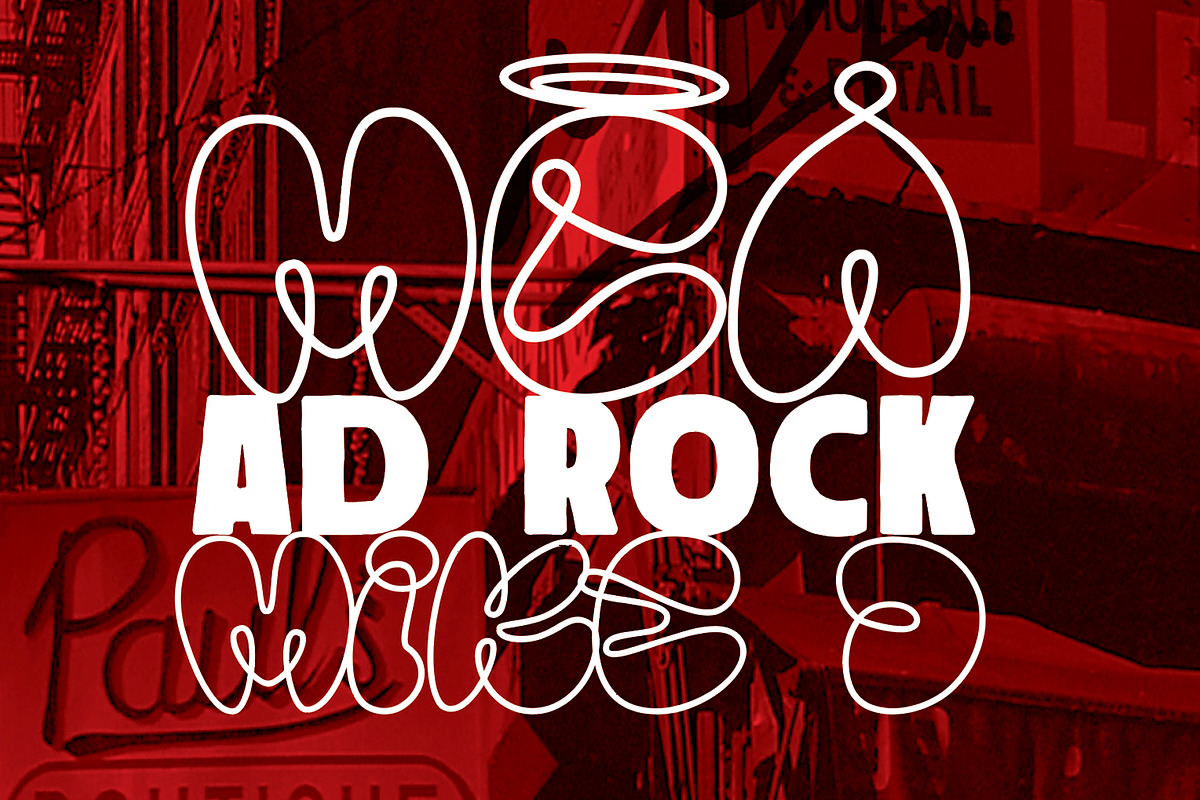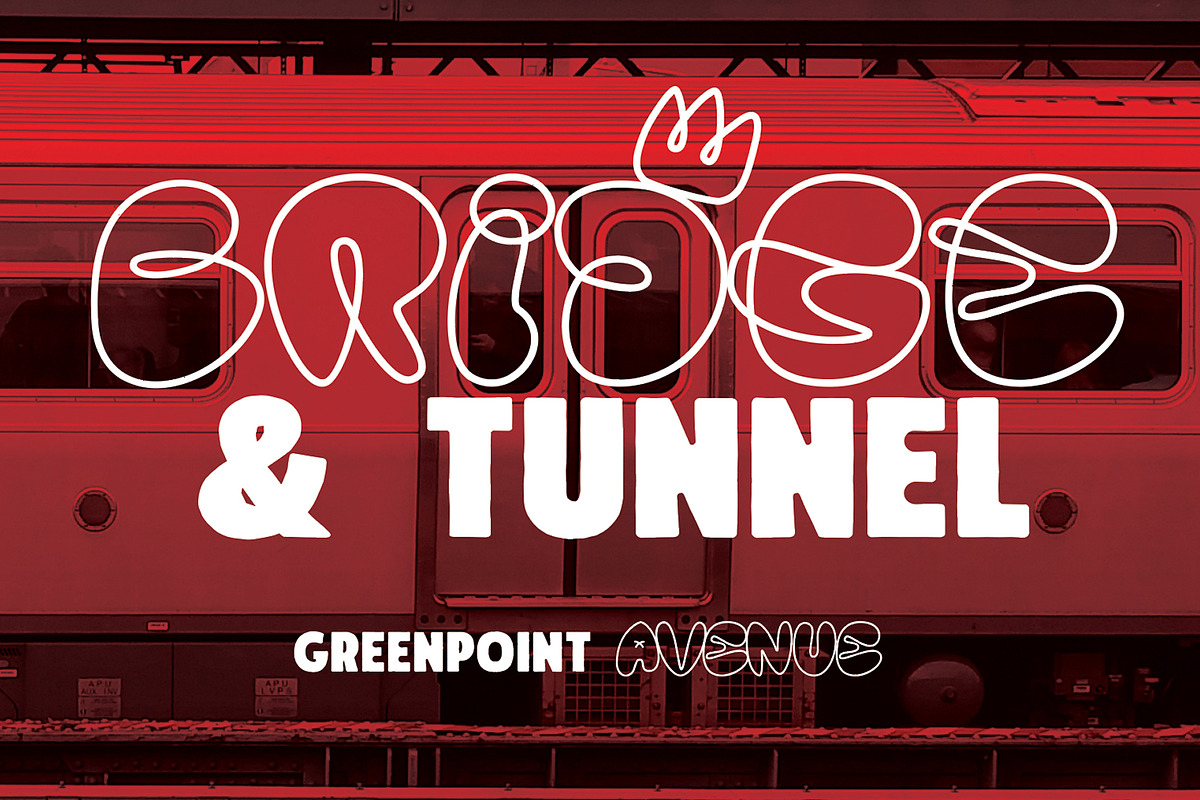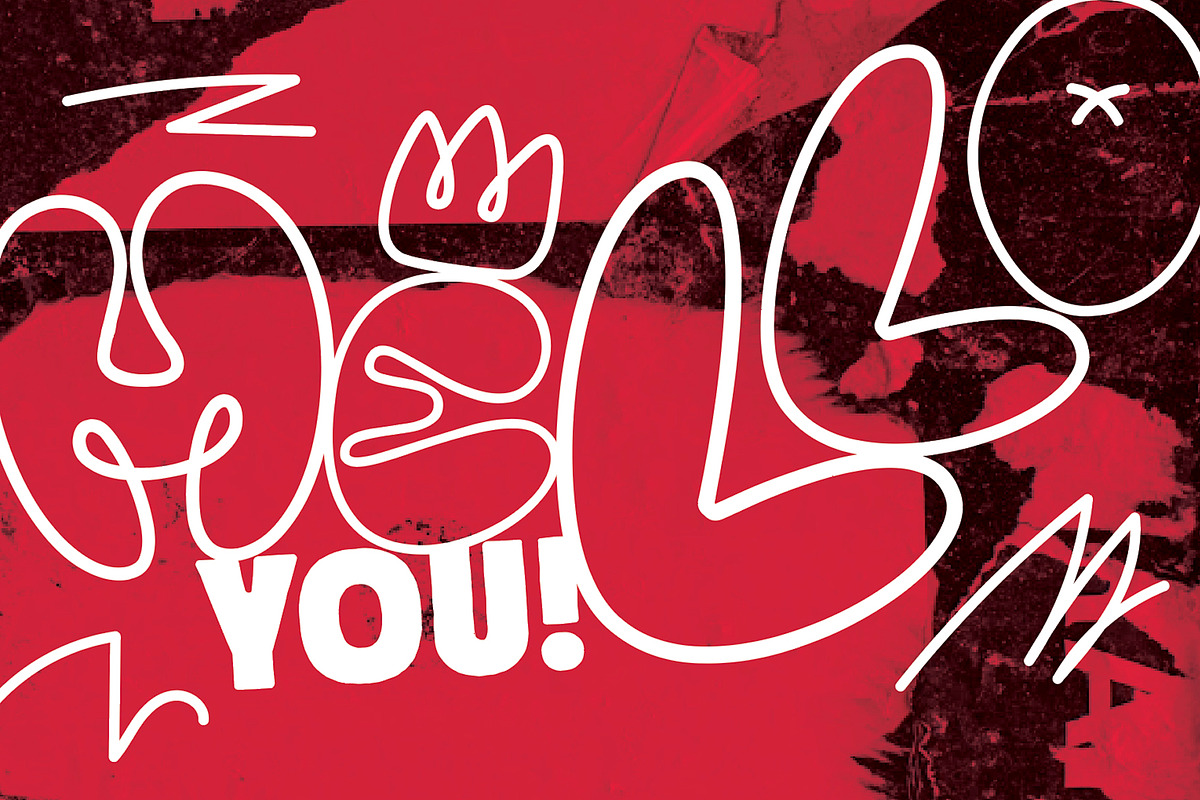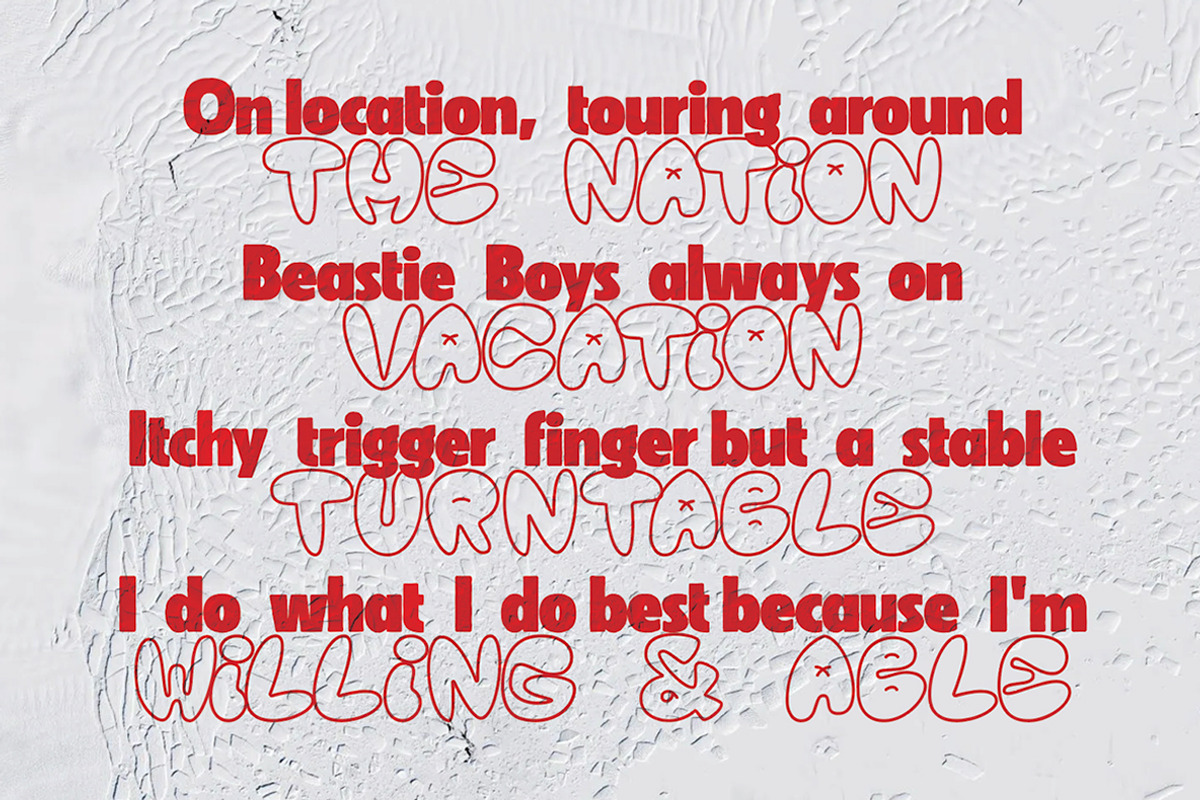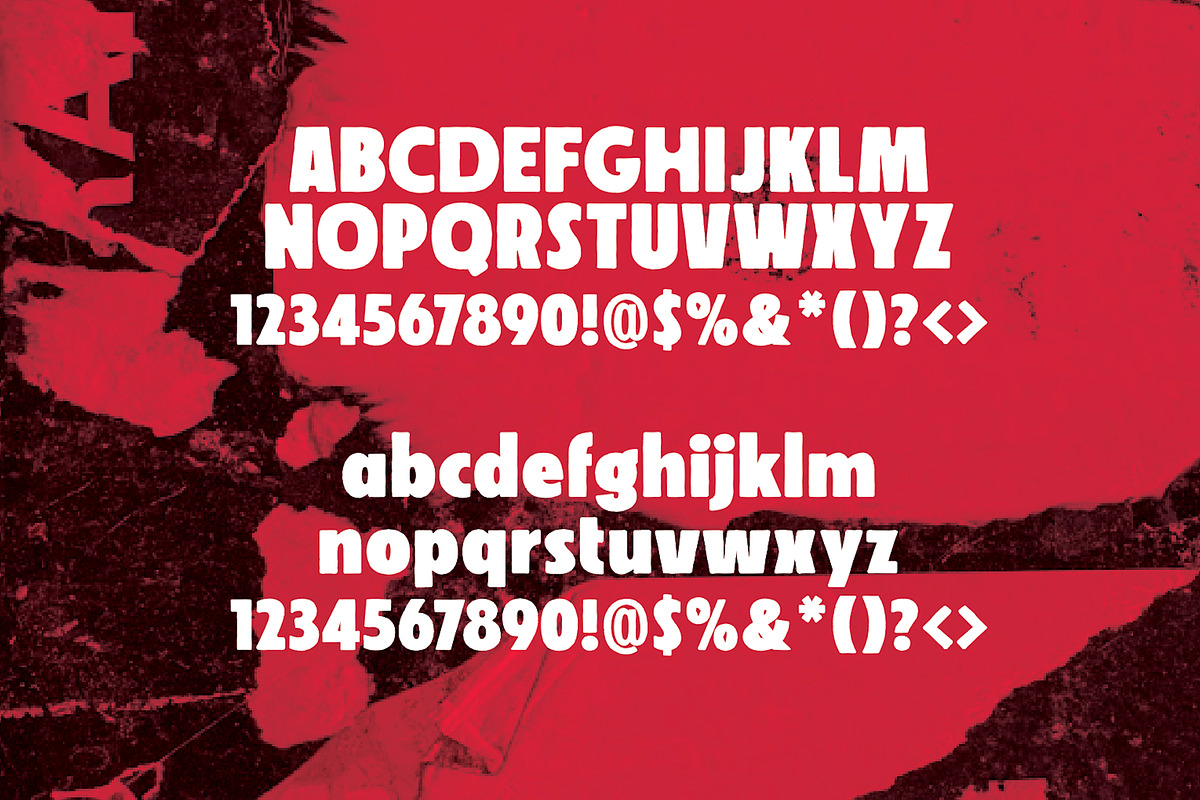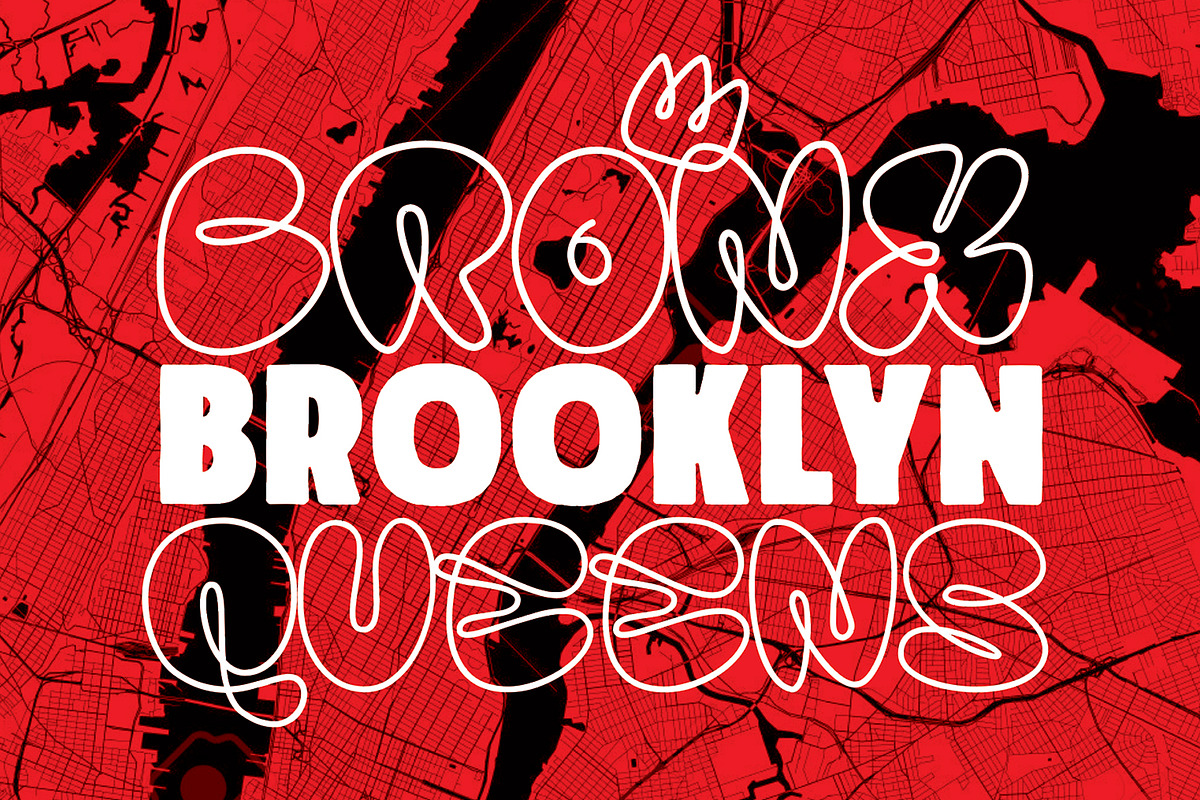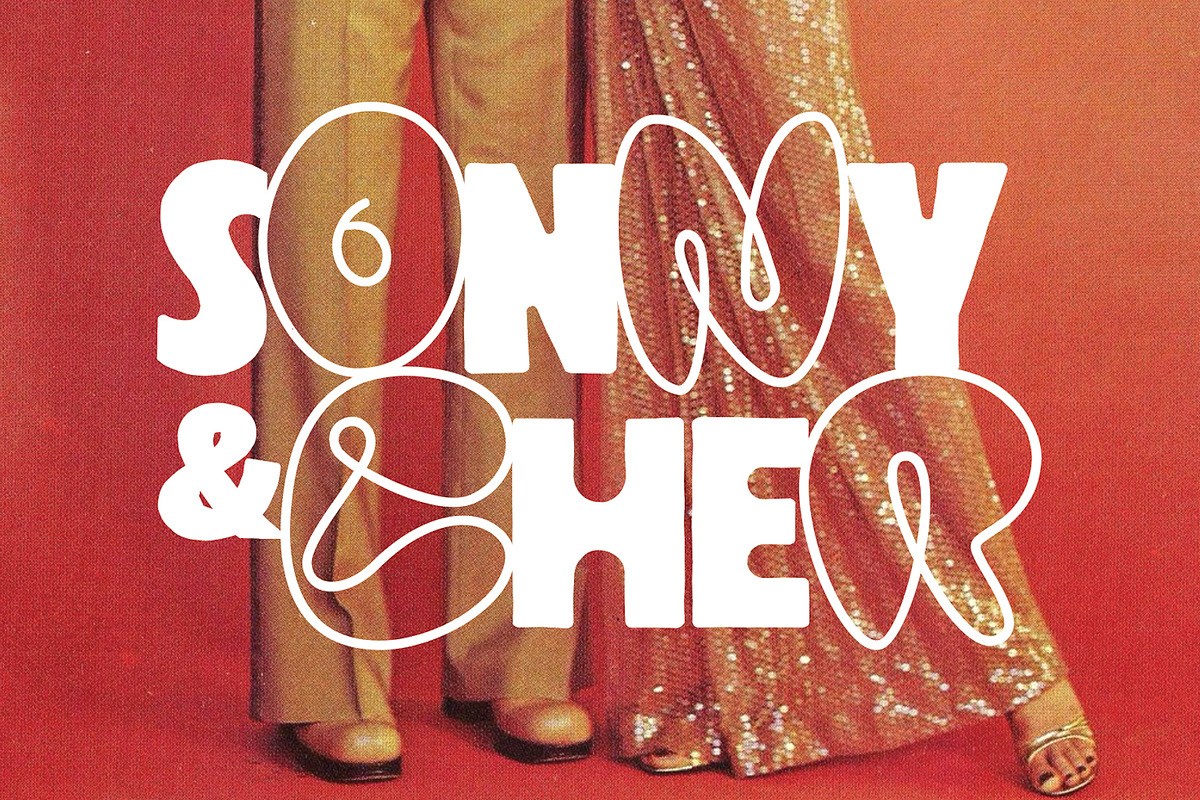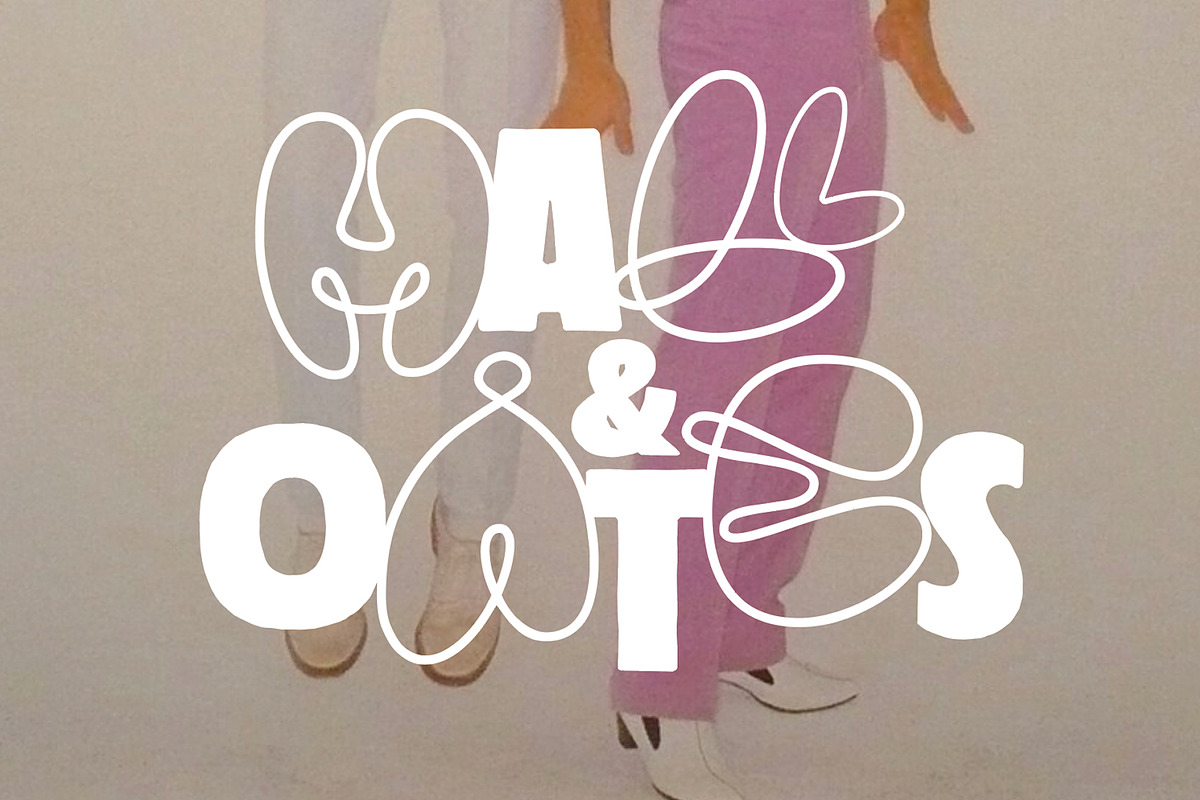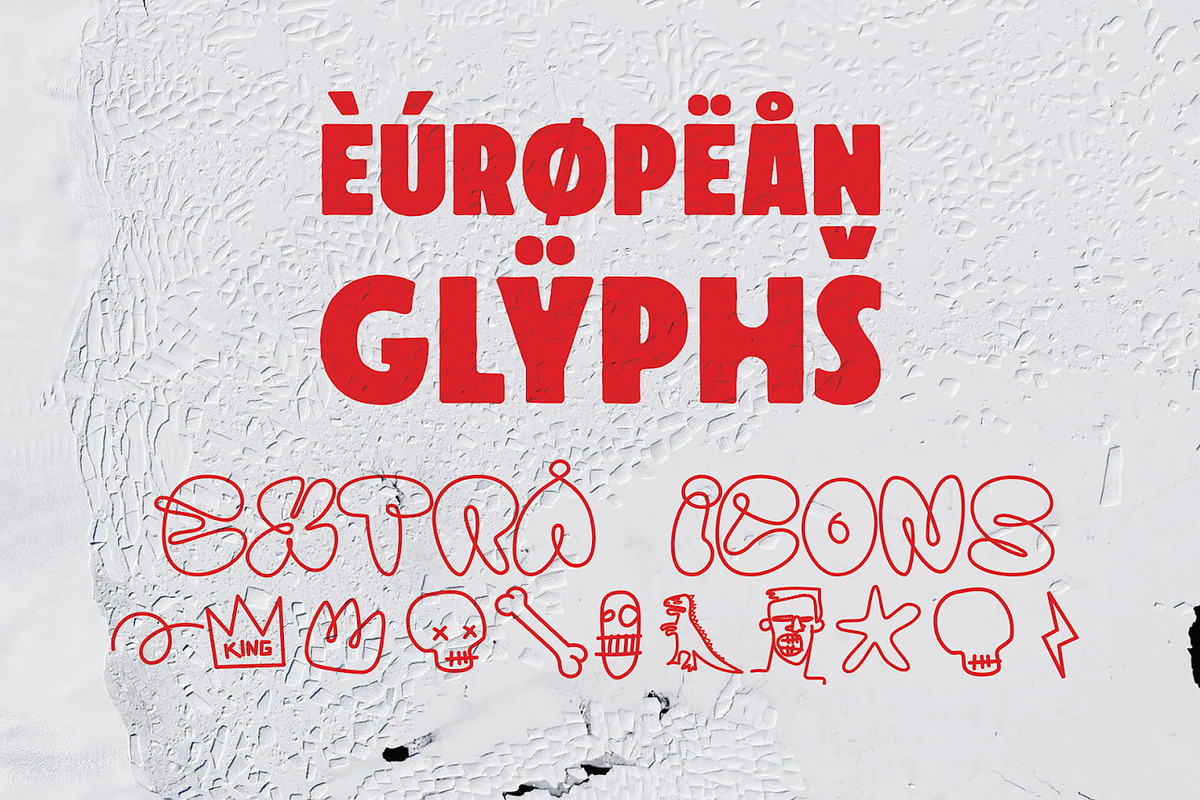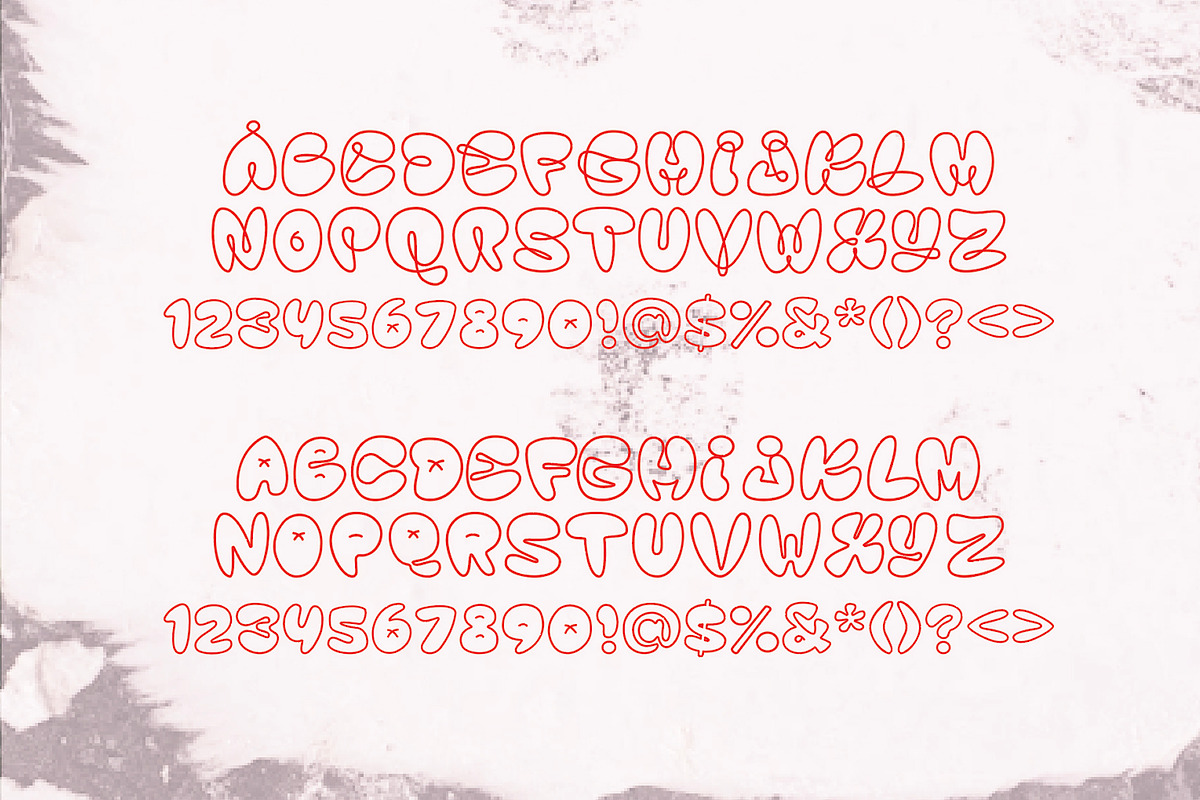
Bubbba & Bubbbo - Font Duo
Bubbba is a bubble font, Bubbbo is a boring font. Bubbbo is well jealous of Bubbba. Bubbba has an inflated ego, Bubbbo is understated. Together they are more tan the sum of their parts. They are like Hall & Oates - they don't talk to each other much these days, but have an amazing back catalogue.